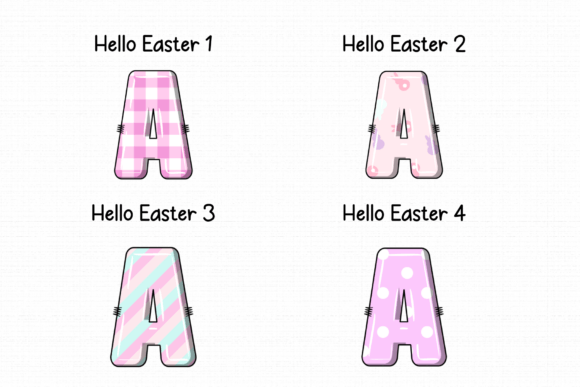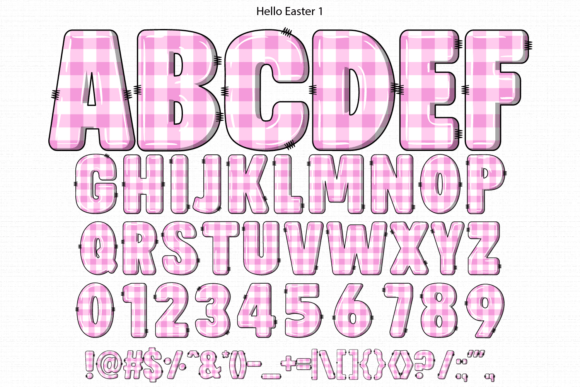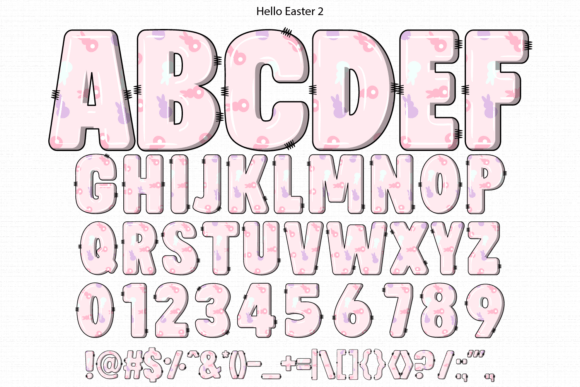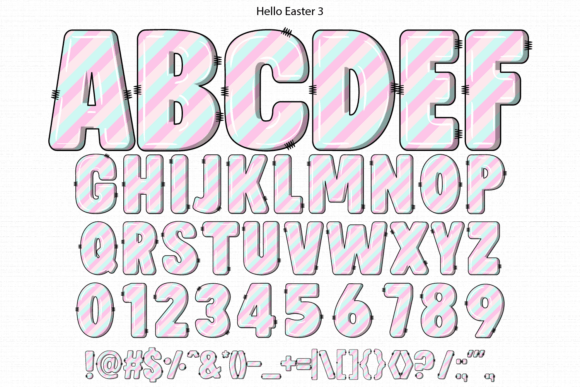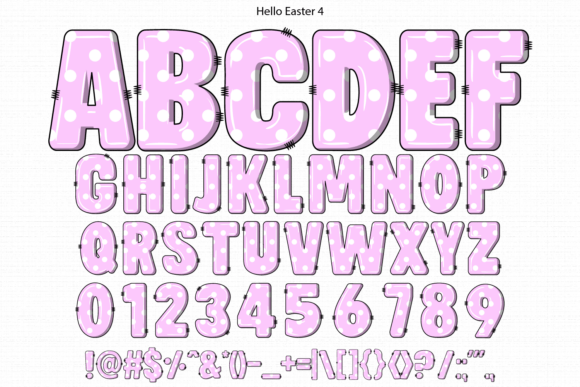
Welcome the Vibrancy of Hello Easter Font to Your Designs
Are you looking to infuse your creative projects with a festive feel and youthful exuberance? Look no further than the “Hello Easter” color font. This delightful font is designed to bring a sense of playfulness and joy to a wide range of applications, making it the perfect companion for designers and crafters alike.
A Font for Every Creative Project
Hello Easter font is incredibly versatile, making it suitable for various creative endeavors. Whether you’re aiming to add a seasonal spark to your branding, embed a cheerful vibe into your blog posts, craft charming greeting cards, or share joy via distinctive invitations, this font is adept at delivering. Its vibrant appeal also makes it an excellent choice for planners, photo albums, and decorations.
A sample of the Hello Easter font in use
Tips for Using Hello Easter Font
To make the most of the Hello Easter font, here are a few tips:
- Experiment with colors: While the font comes in a black version, don’t be afraid to explore different colors that match your brand or project’s theme.
- Mix and match: Combine the Hello Easter font with other fonts to create a unique and eye-catching design.
- Play with sizes: Use the font in various sizes to add emphasis and create visual hierarchy in your designs.